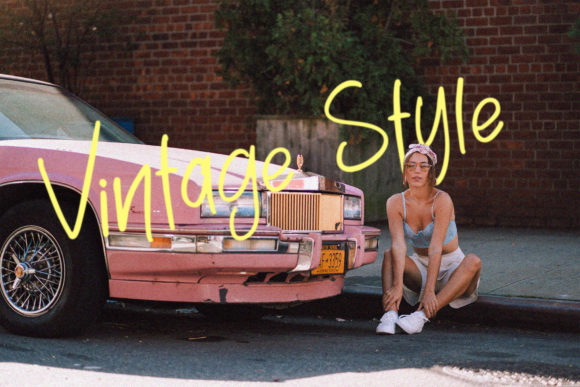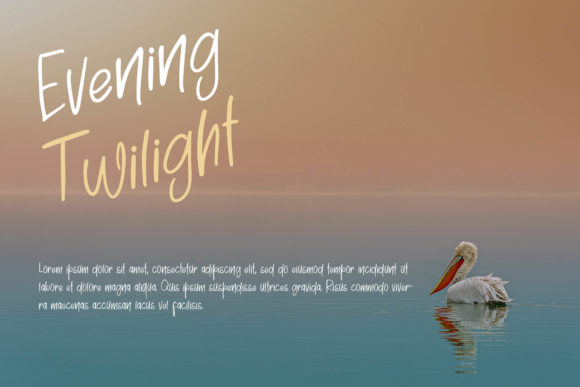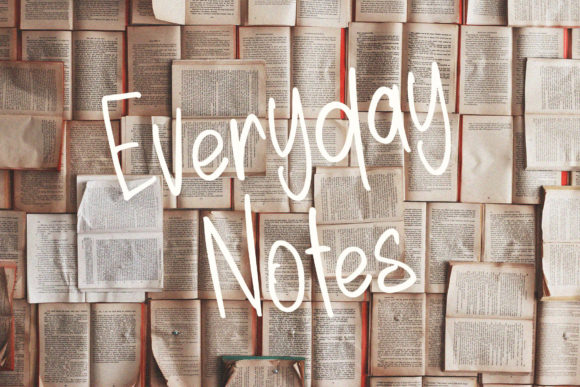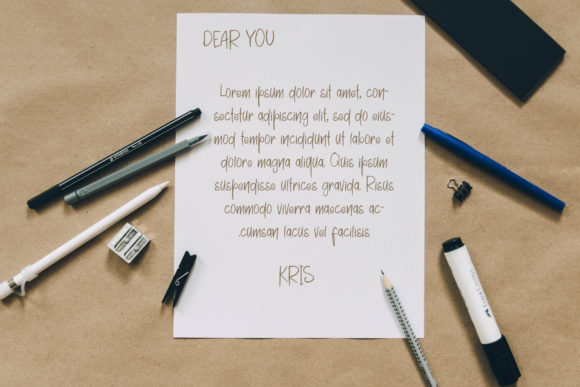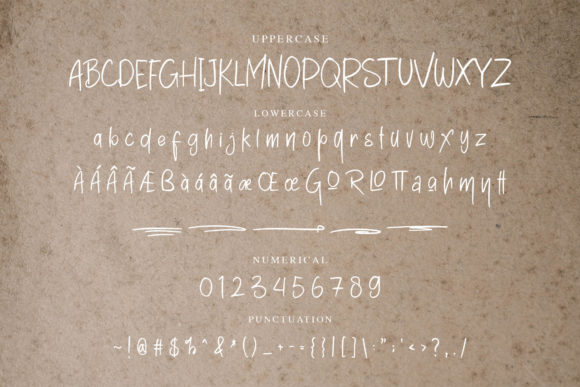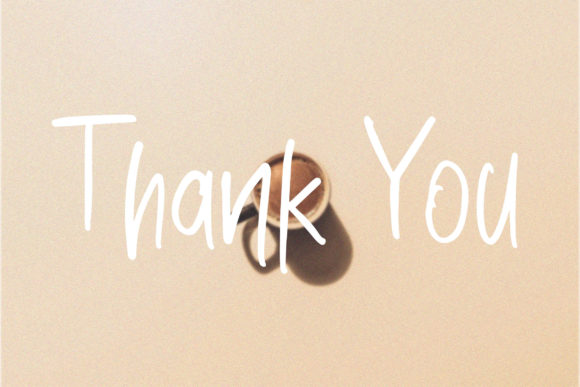
Introduction to Bettani Antique Font
Bettani Antique is a stylish and chic handwritten font.
No matter the topic, this font will be an incredible asset to your fontsโ€™ library, as it has the potential to elevate any creation .
Key Features of Bettani Antique Font
Why Choose Bettani Antique Font?
Bettani Antique Font offers exceptional quality and versatility, making it a valuable addition to your design toolkit. Whether you’re creating for personal projects or commercial use, Bettani Antique Font delivers professional results.